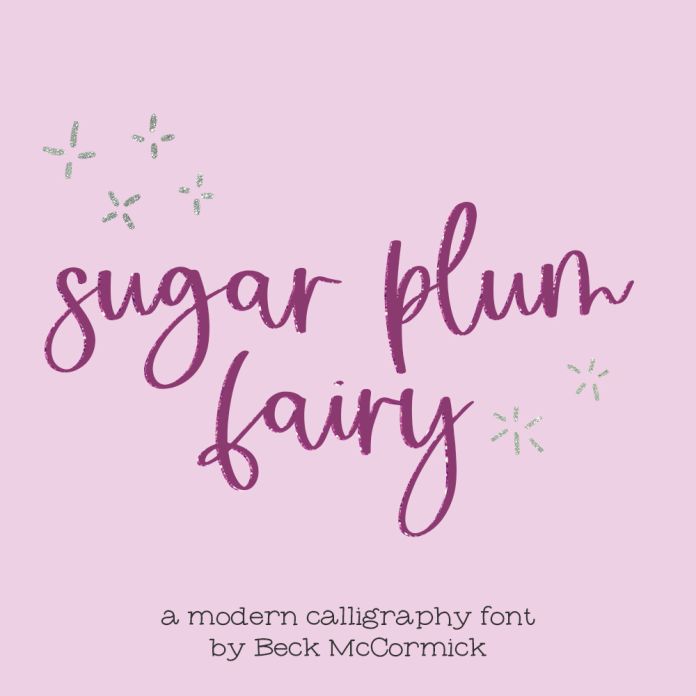
Sugar Plum Fairy Script is a modern calligraphy font. This cursive font is cute and legible, making it the perfect fit for your holiday & seasonal designs. Use Sugar Plum Fairy for designing your own Christmas cards, gift tags, or holiday decor made with your preferred crafting machine. Sugar Plum Fairy is also a great fit for social media graphics, marketing, and logos & branding. It pairs well with Rock Salt Typewriter Font - https://www.silhouettedesignstore.com/rock-salt-typewriter-serif-font-377461.html.